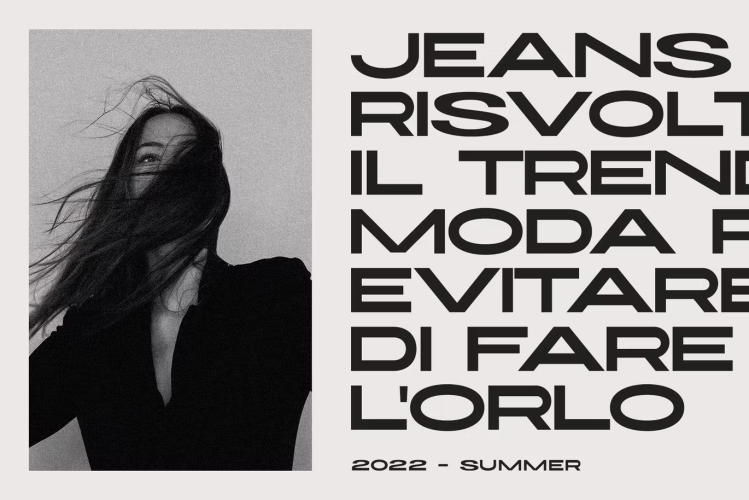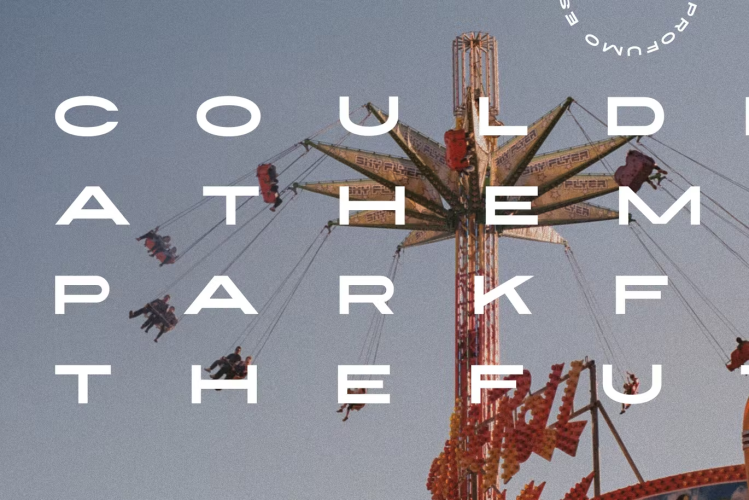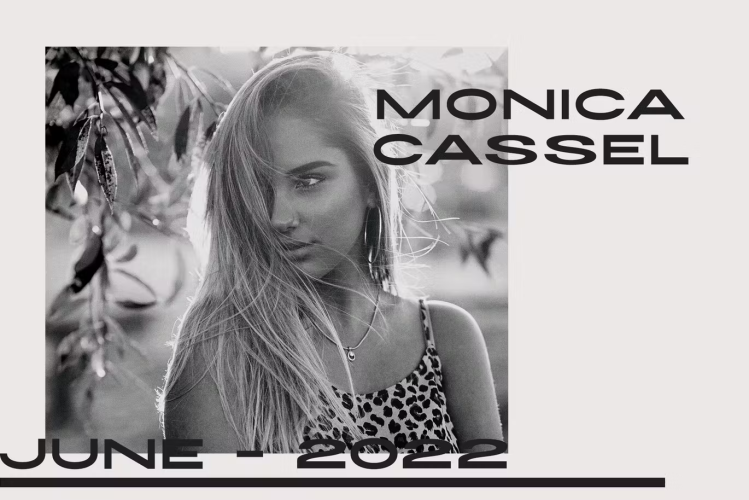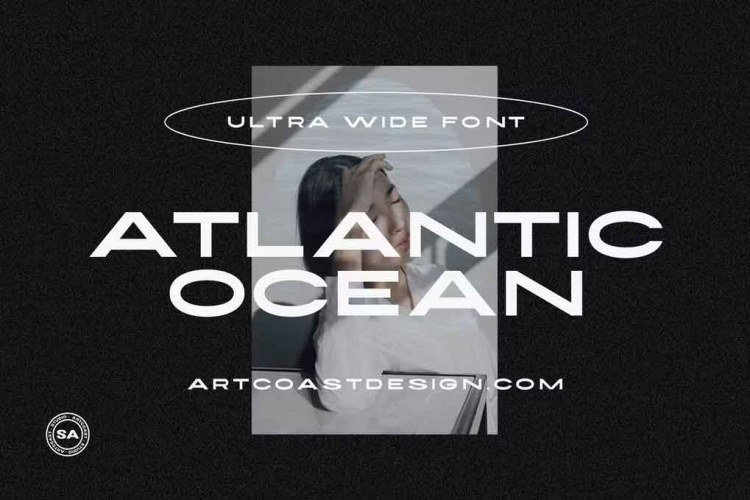
Atlantic Ocean Font
SA Atlantic Ocean” is a new classic casual sans serif wide font. “SA Atlantic Ocean” will perfect for many project: fashion, magazines, logo, branding, photography, invitations, wedding invitation, quotes, blog header, poster, advertisements, postcard, book, websites, etc.
Where Atlantic Ocean Font works best
Atlantic Ocean Font keeps its shape at 14 and 16 pixels, which is where interface text actually lives. Numbers and capitals stay distinguishable in tables.
Presentations are read at a distance; a clean sans with a strong bold is the safest hierarchy you can build in a hurry.
Simple letterforms survive angles, glare and movement, so Atlantic Ocean Font suits door signs, menus boards and exhibition panels.
What kind of work does Atlantic Ocean Font suit?
It sits in the Sans Serif Fonts group and reads as branding, classic, sans serif, sans serif fonts. That makes it a candidate wherever those qualities help: headings, packaging, social graphics and brand work. Set it at the size you plan to use before deciding.